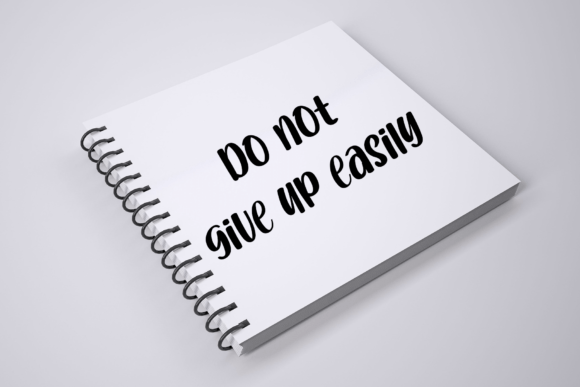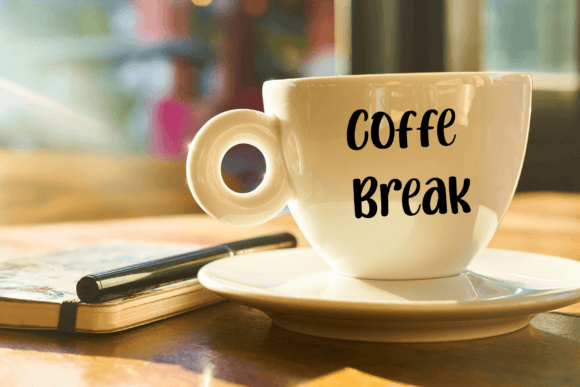
About Dragon Kids Font
“Dragon Kids” is a delightful and friendly handwritten font designed to infuse a sense of fun and charm into your projects. Its playful style adds a unique touch, allowing you to turn any design idea into a standout creation. With its lighthearted and whimsical appeal, Dragon Kids inspires creativity and lends a friendly vibe to your designs.
The fun and friendly nature of Dragon Kids make it versatile for a wide range of design applications. Whether you’re working on children’s book covers, playful branding, or vibrant social media posts, this font brings a sense of joy and creativity to the forefront.
The unique charm of Dragon Kids adds character to your designs, making them visually appealing and memorable. It’s an excellent choice for projects that require a touch of personality, such as product packaging, posters, or any creative endeavor where a friendly and approachable aesthetic is desired.
In the realm of children’s designs, Dragon Kids shines with its whimsical flair. From birthday party invitations to educational materials, the font’s playful demeanor makes it a perfect companion for capturing the attention and imagination of young audiences.
The handwritten style of Dragon Kids adds a touch of authenticity and warmth to your designs. It’s not just a font; it’s a design tool that allows you to create lovely and engaging visuals, making your projects stand out in a crowd.
In summary, Dragon Kids is a font that goes beyond the ordinary, bringing a sense of fun and friendliness to your designs. Let it inspire your creativity and turn your ideas into true standouts, creating lovely and memorable designs across various applications.